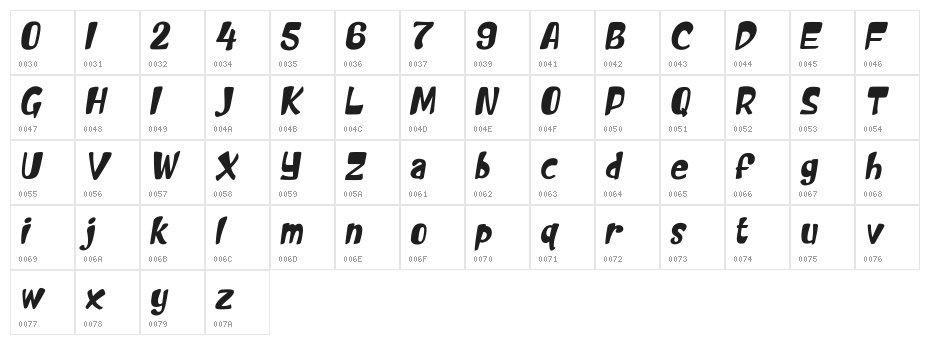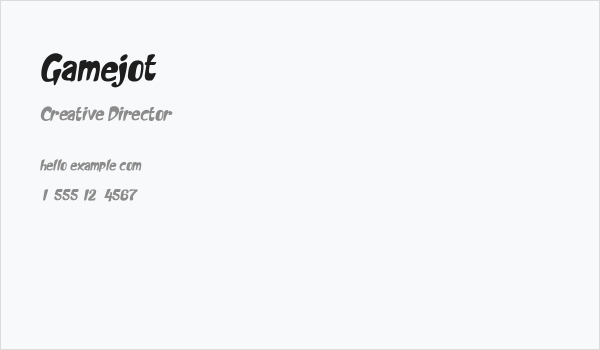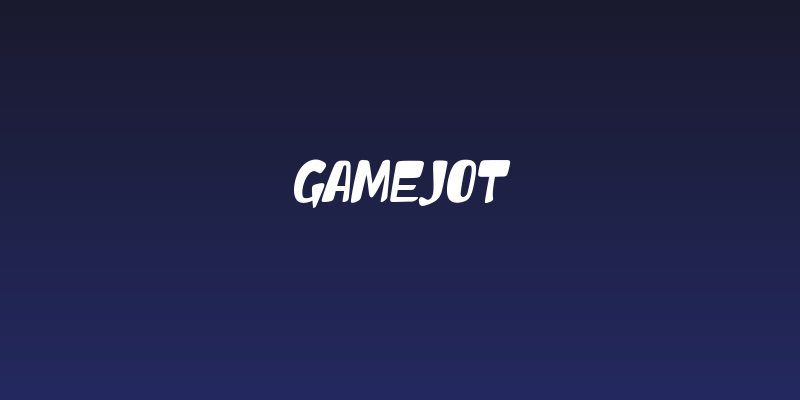
Gamejot Font
Gamejot Description
This font features a bold and playful style, characterized by its thick, rounded strokes and slightly irregular shapes. The letters have a dynamic, energetic feel, with a slight slant that adds to the sense of movement. The uppercase and lowercase letters maintain a consistent weight, creating a cohesive look across the alphabet. The numbers are similarly styled, with a bold presence that matches the letters. The special characters are integrated seamlessly, maintaining the overall playful aesthetic. This font is ideal for projects that require a fun and lively touch, such as children's books, playful branding, or eye-catching headlines.
| Overall Style | Playful, Energetic |
| Proposed Projects | Children's books, playful branding, eye-catching headlines. |